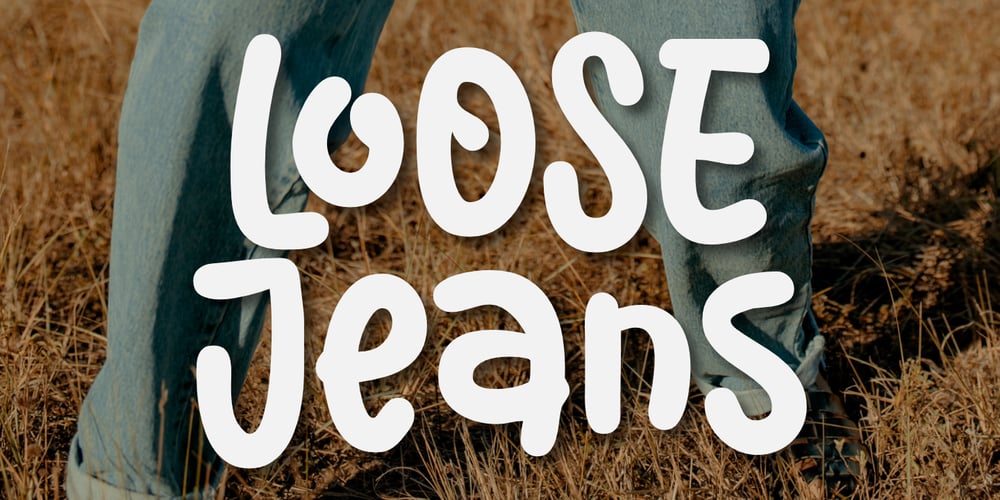
Loose Jeans Font Family was designed by Aldy Sidik and published by Epiclinez. Loose Jeans contains 1 styles and family package options. Loose Jeans is a fun, playful, and quirky display font. It has a modern yet whimsical style an it will undoubtedly immerse your designs into a magical world.So what’s included : Basic Latin A-Z & a-z Numbers, symbols, and punctuations Accented Characters : ÀÁÂÃÄÅÆÇÈÉÊËÌÍÎÏÑÒÓÔÕÖØŒŠÙÚÛÜŸÝŽàáâãäåæçèéêëìíîïñòóôõöøœšùúûüýÿžß Thank you